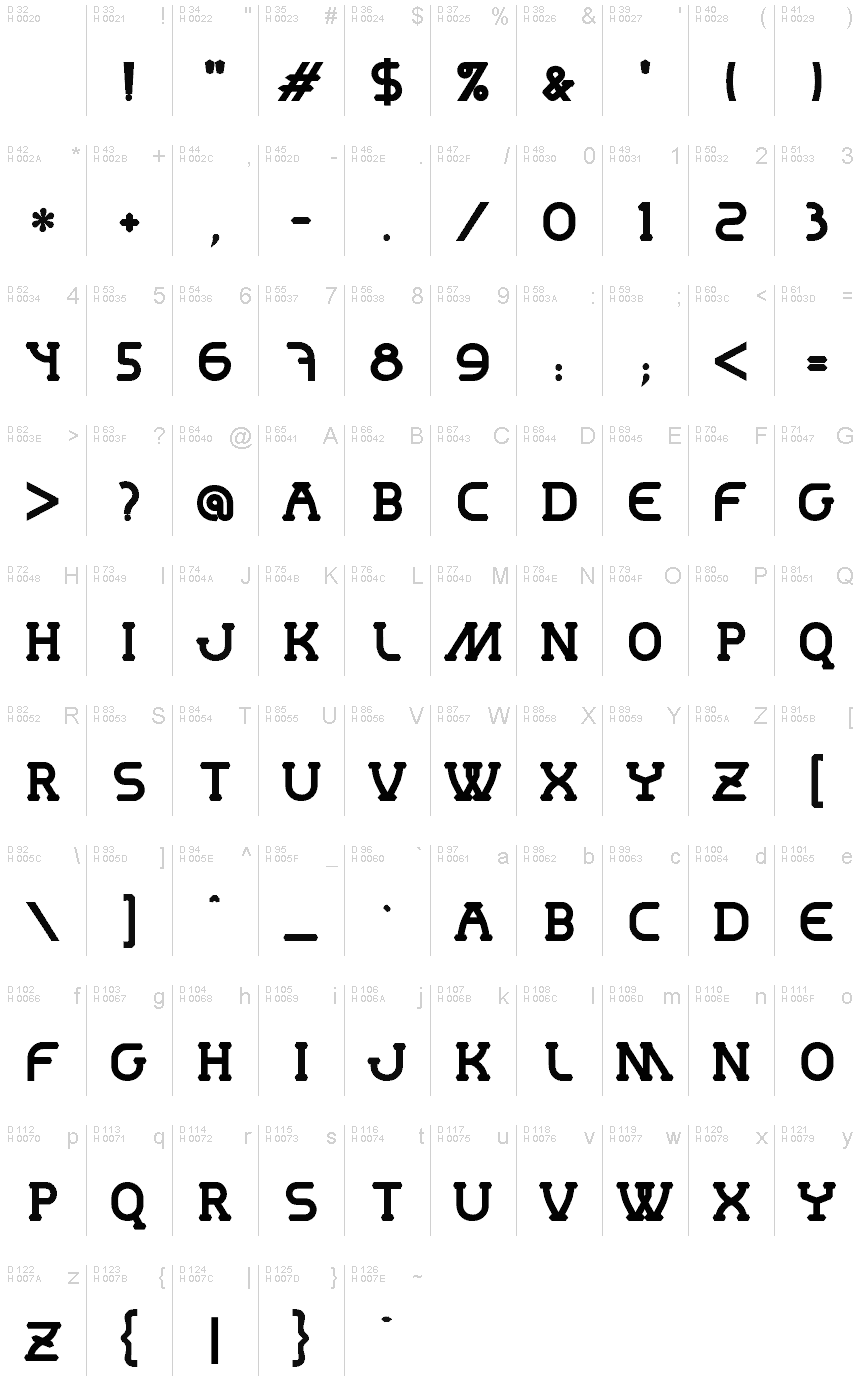
MastumBold
Mastum Bold, a captivating display font crafted by Max Infeld of Xerographer Fonts, exudes a strong, geometric presence. Its bold strokes and angular forms create a striking visual impact, lending an air of modern sophistication to any design.
The font's sharp edges and robust letterforms convey a sense of authority and confidence, making it an ideal choice for headings, logos, and impactful typography.
Mastum Bold's versatility extends to various design applications, from editorial layouts and branding to signage and packaging. Its distinctive aesthetic lends itself to creating bold, attention-grabbing statements that leave a lasting impression.